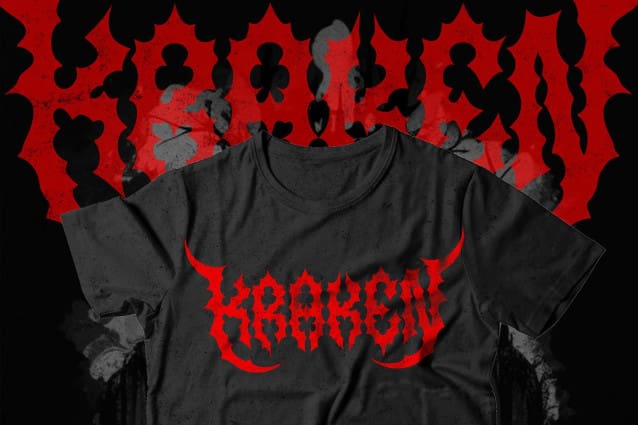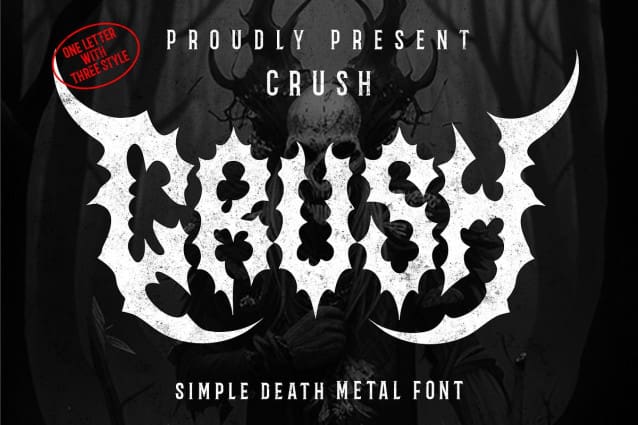
Crush Simple Metal Font
Crush Simple Metal Font, our bold and powerful font that’s perfect for capturing the essence of metal music. With its simple yet impactful design, Crush Simple Metal Font is ideal for creating designs that reflect the raw energy and intensity of metal bands.
Crush’s unique style will help your designs stand out from the crowd, with its bold shapes and distinctive appearance. Whether you’re creating album covers, merchandise, or promoting a metal concert, Crush will give your designs a memorable look that captures the essence of metal music.